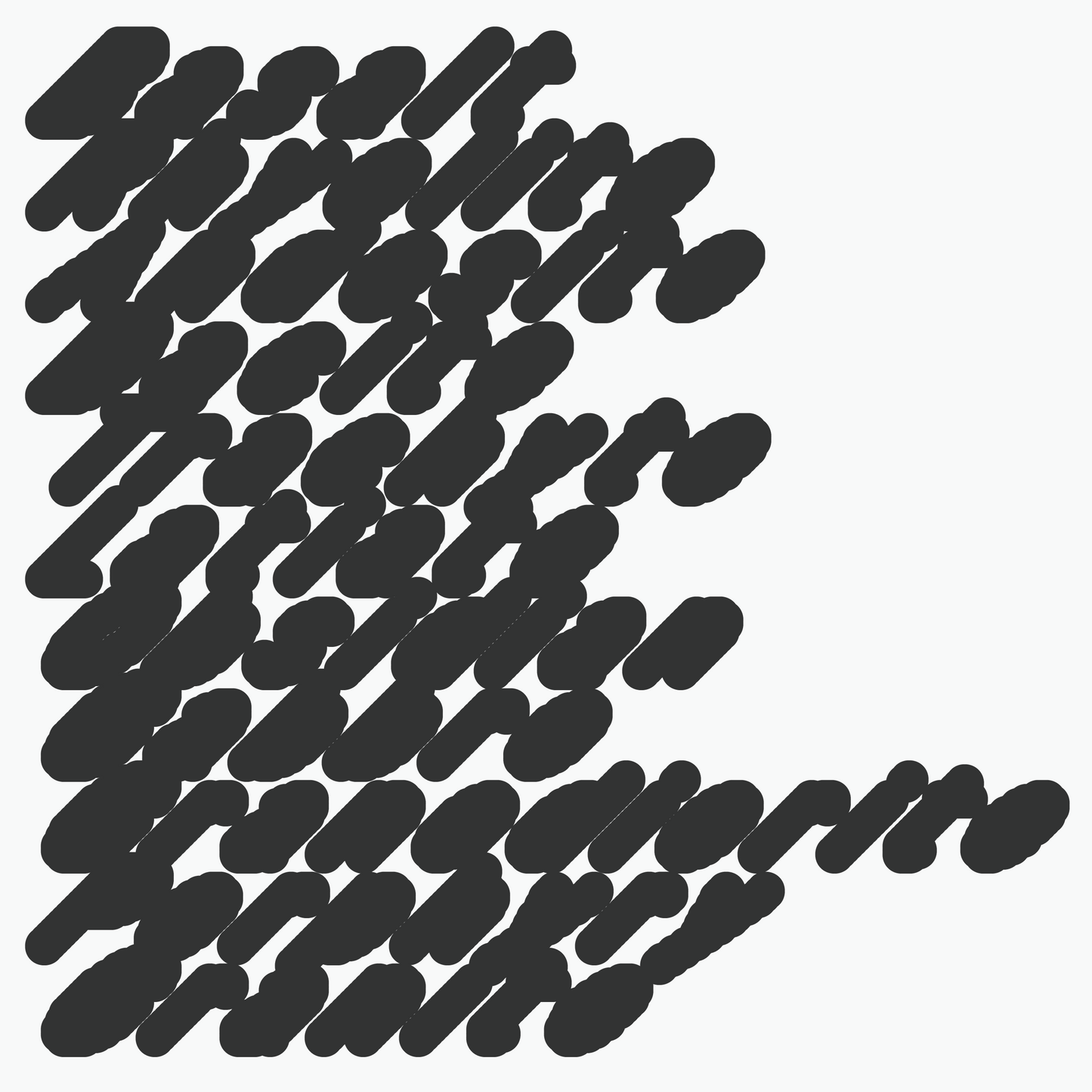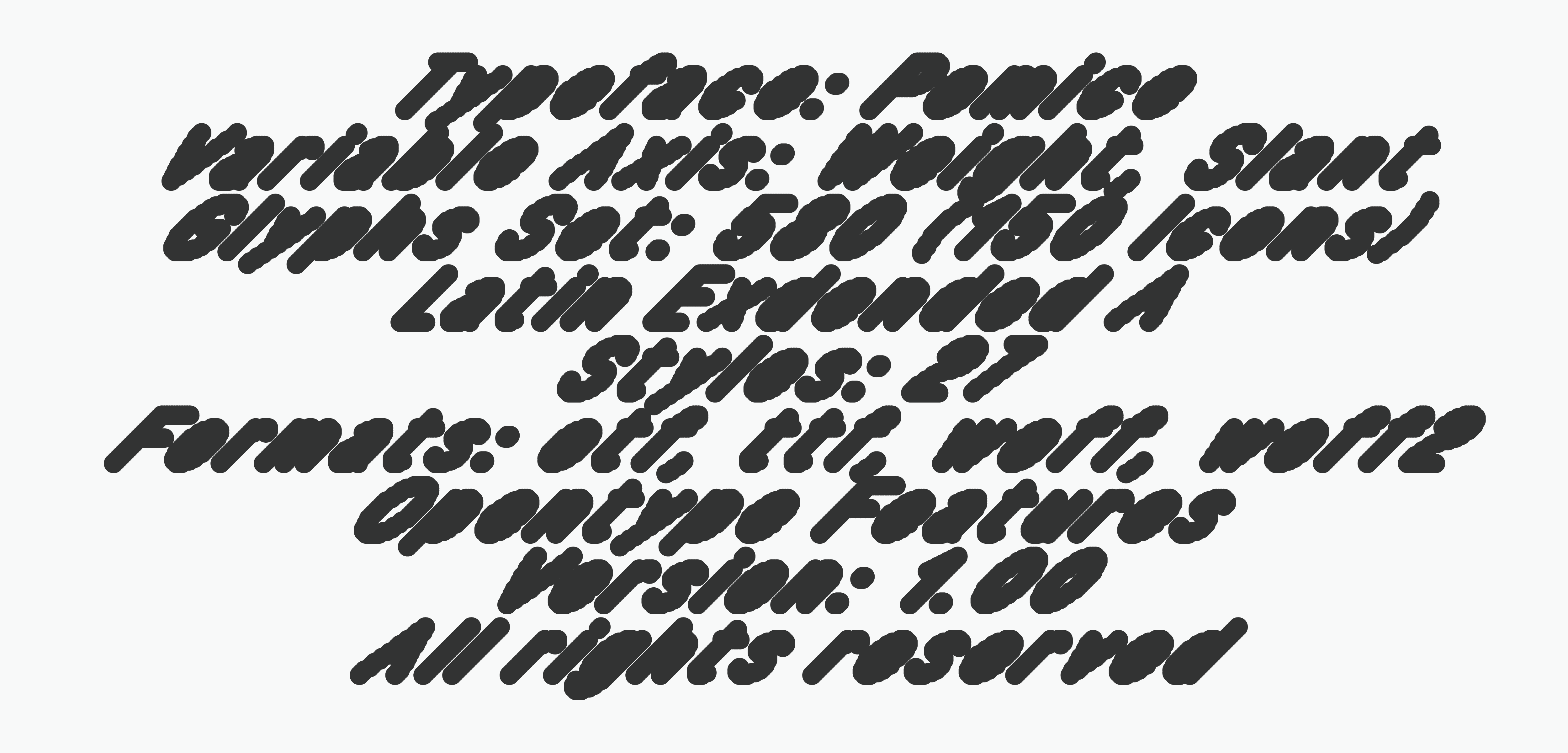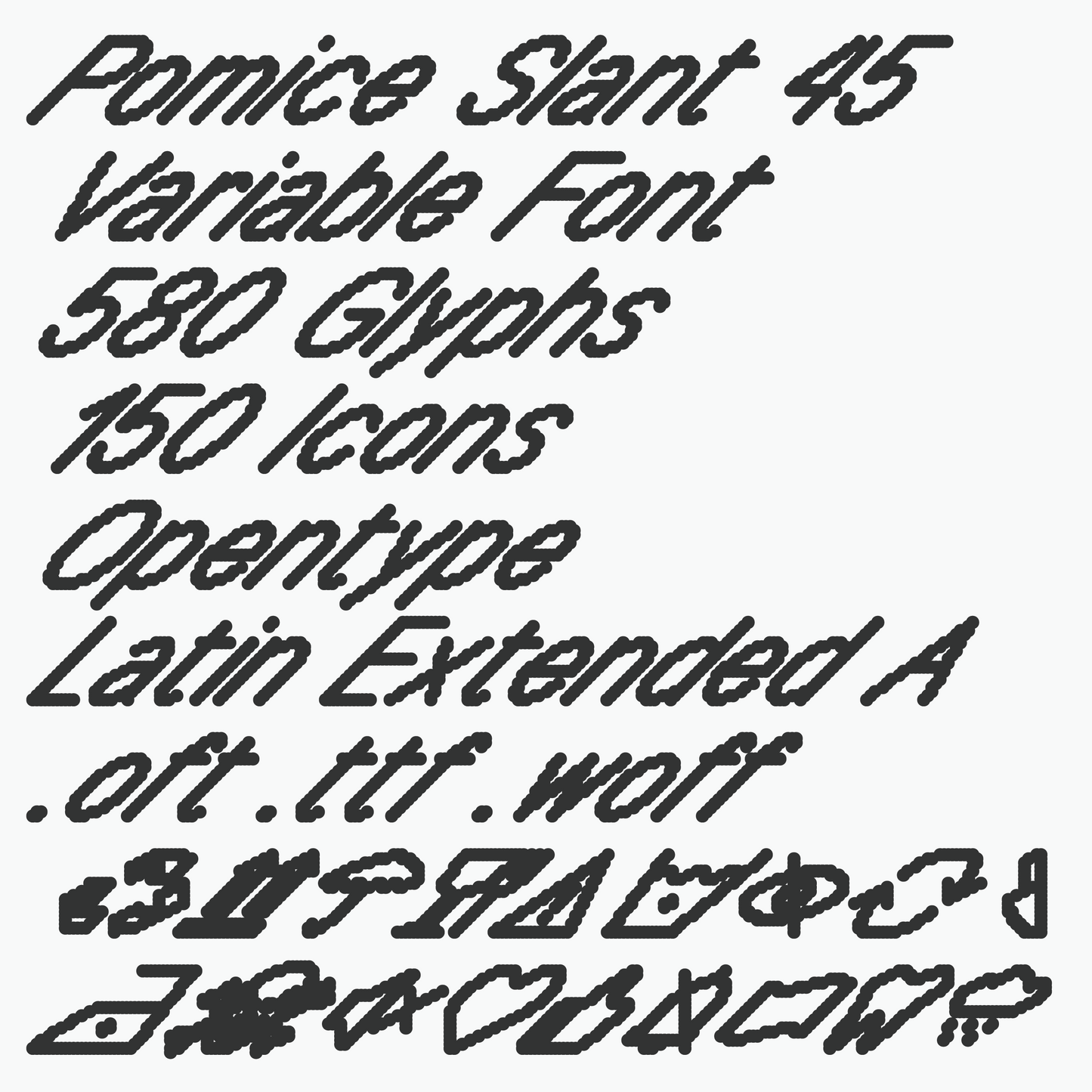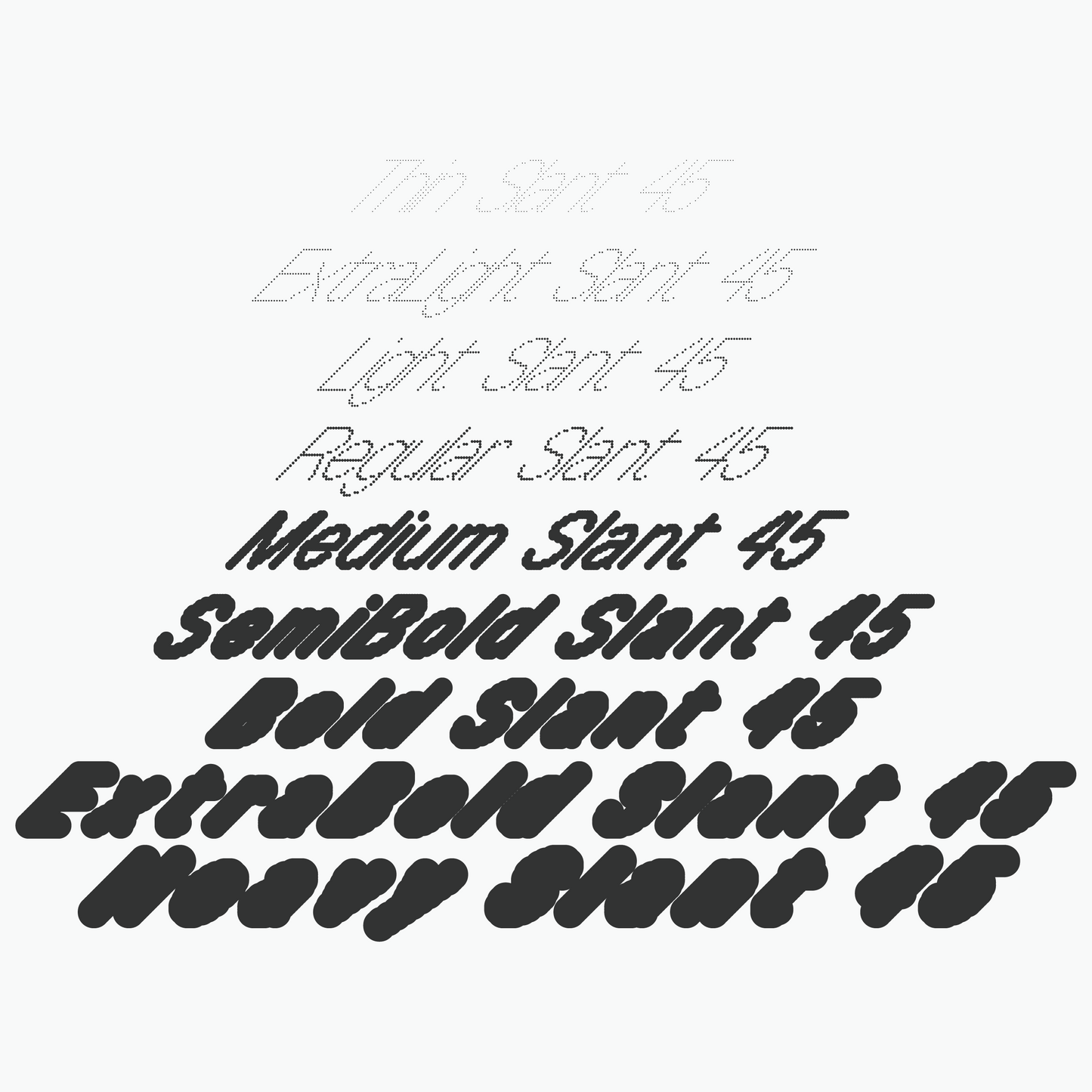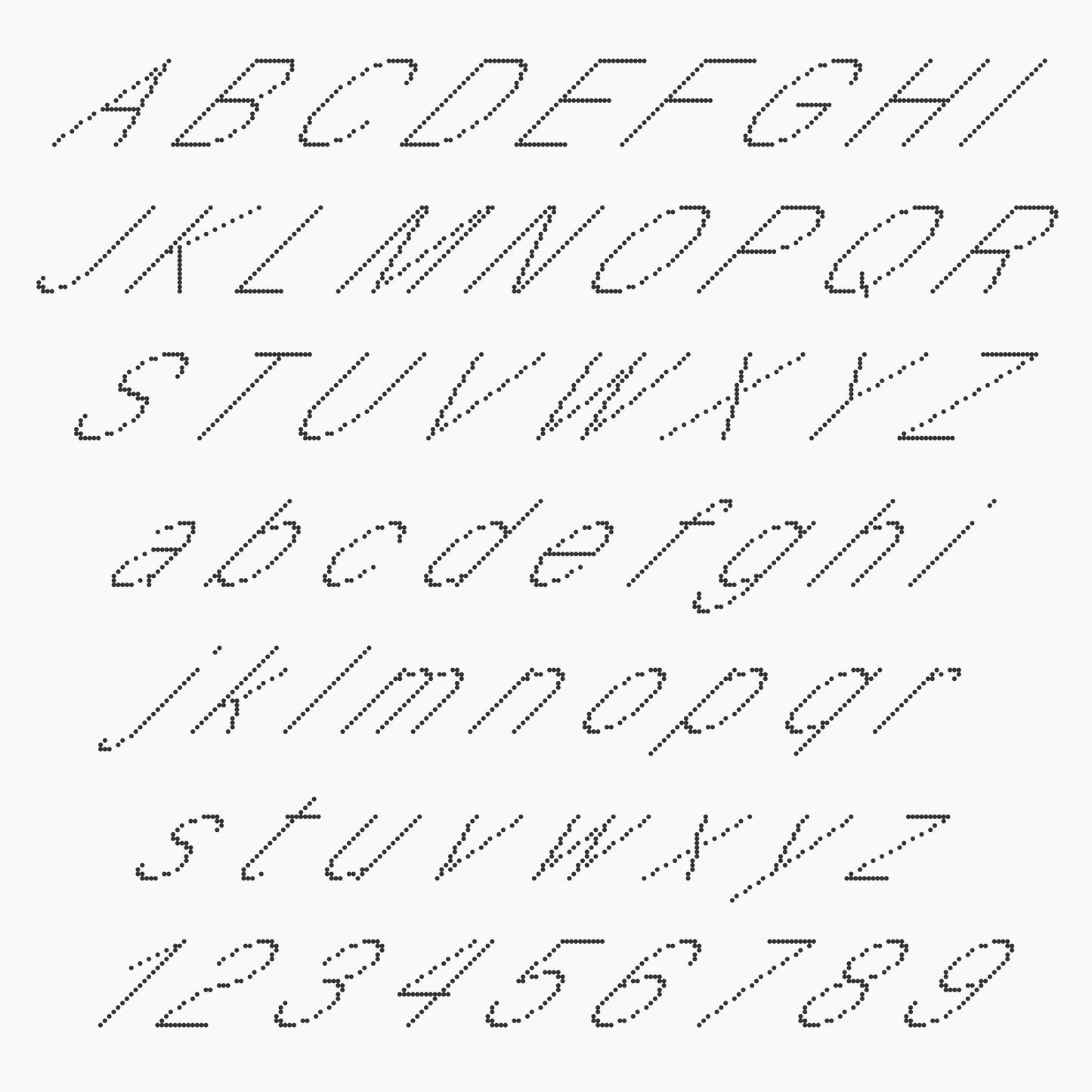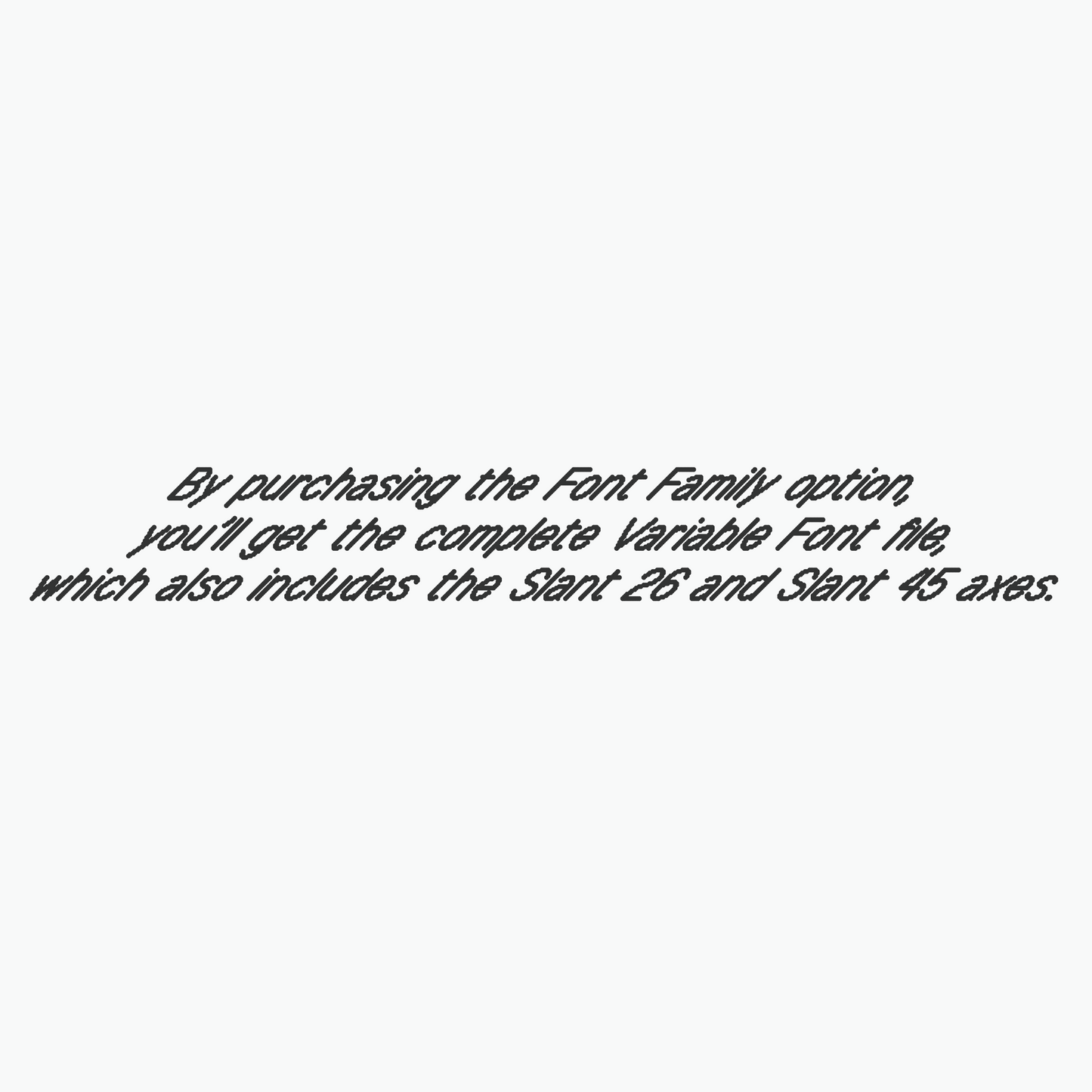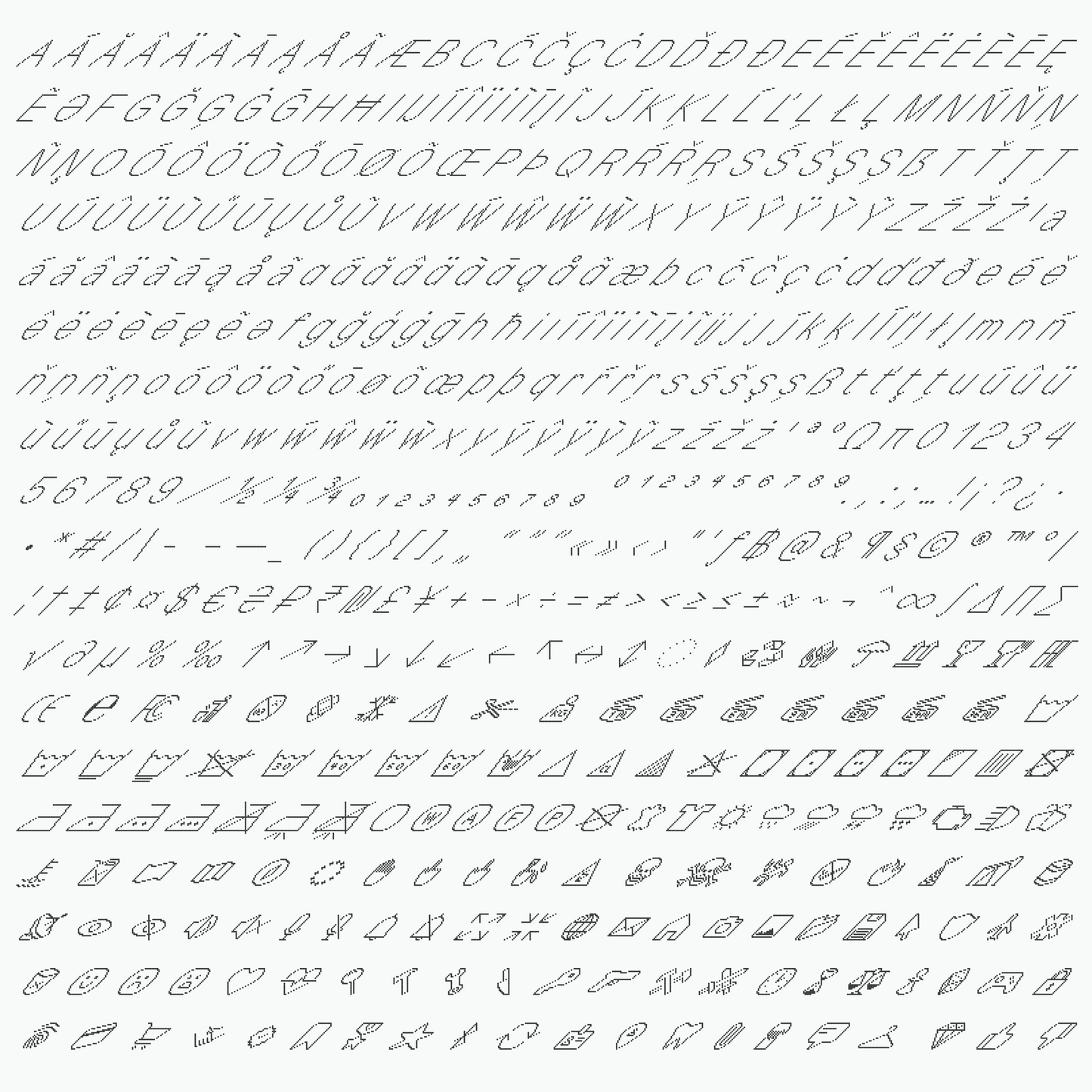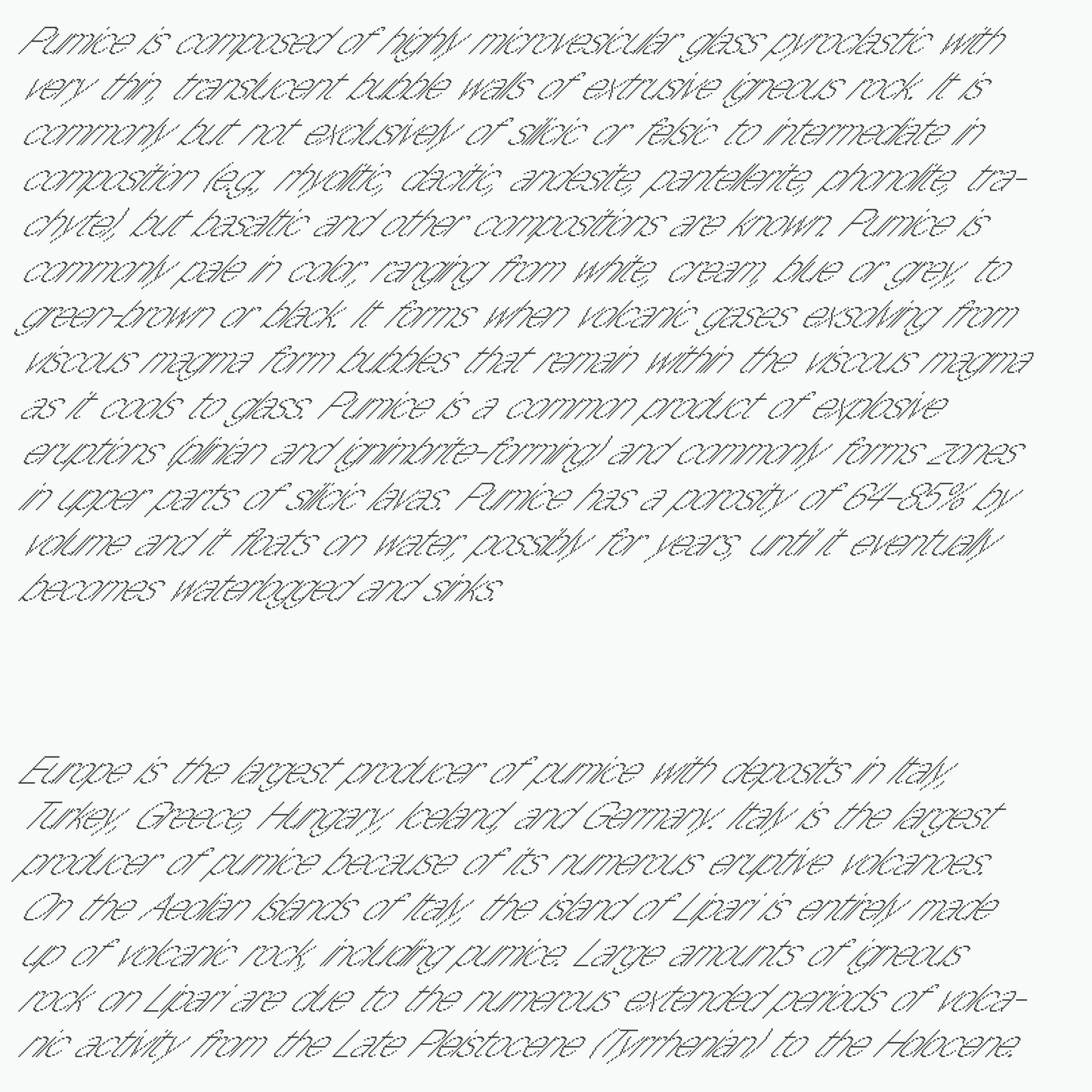
Pomice Slant 45
Giulio Puccini
Pomice is a dot typeface designed for both display and body text.  Built on two variable axes (weight and slant), it offers a versatile typographic system that adapts seamlessly across a wide range of uses. As the weight increases, the dots begin to merge and overlap (eventually reaching a point where the letterforms become almost abstract), pushing the boundaries of legibility in favour of texture and visual impact. The family includes 27 styles and a set of 150 icons, making it a comprehensive toolkit for modern typographic design.
— TOTAL GLYPHS: 580
— SUPPORT LATIN EXTENDED-A
— VARIABLE ON WEIGHT AND SLANT AXIS
— STANDARD LIGATURES
— DISCRETIONARY LIGATURES
— LOCALIZED FORMS
— FRACTIONS
— ORDINALS
— LOCALISED FORMS
— STYLISTIC ALTERNATES